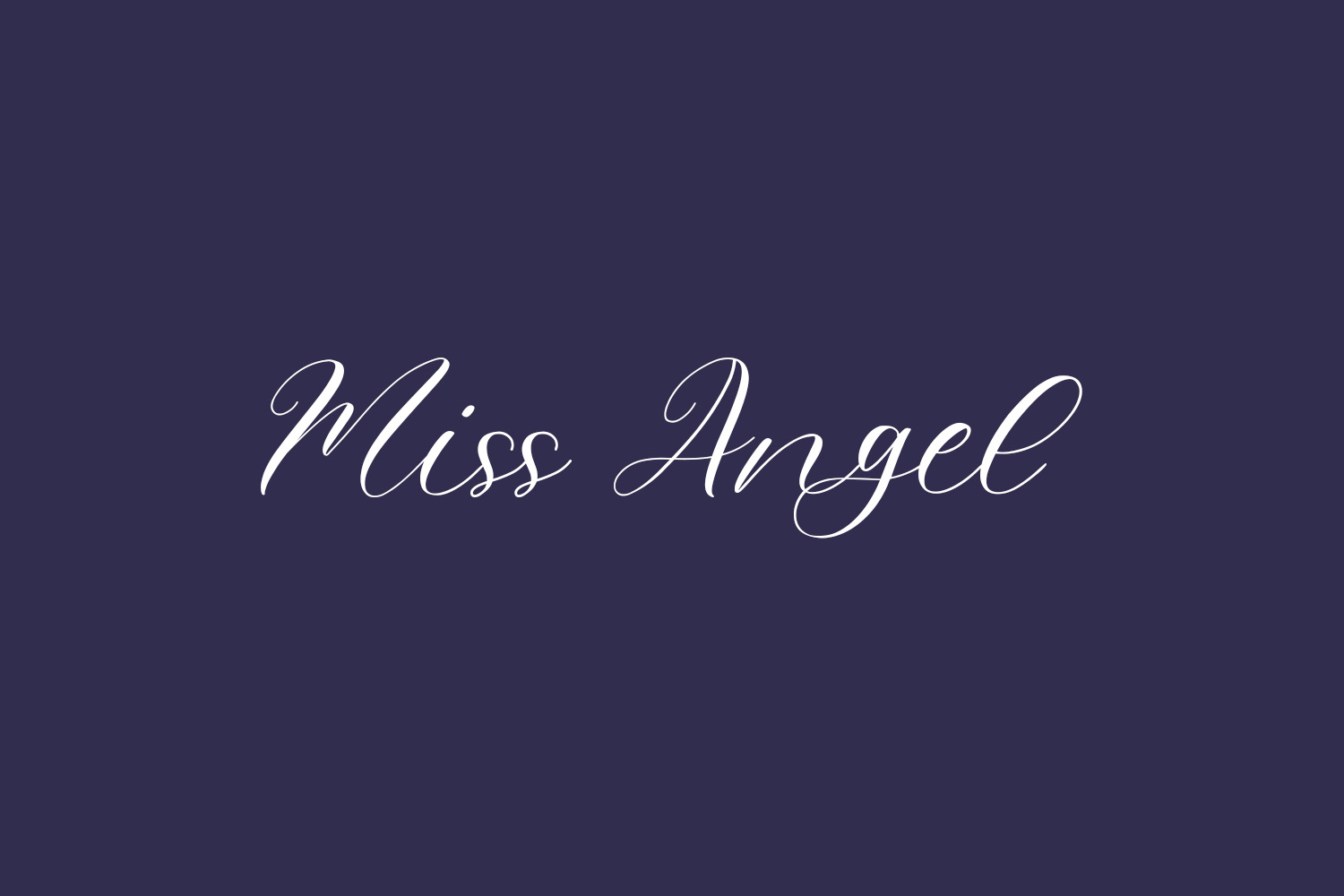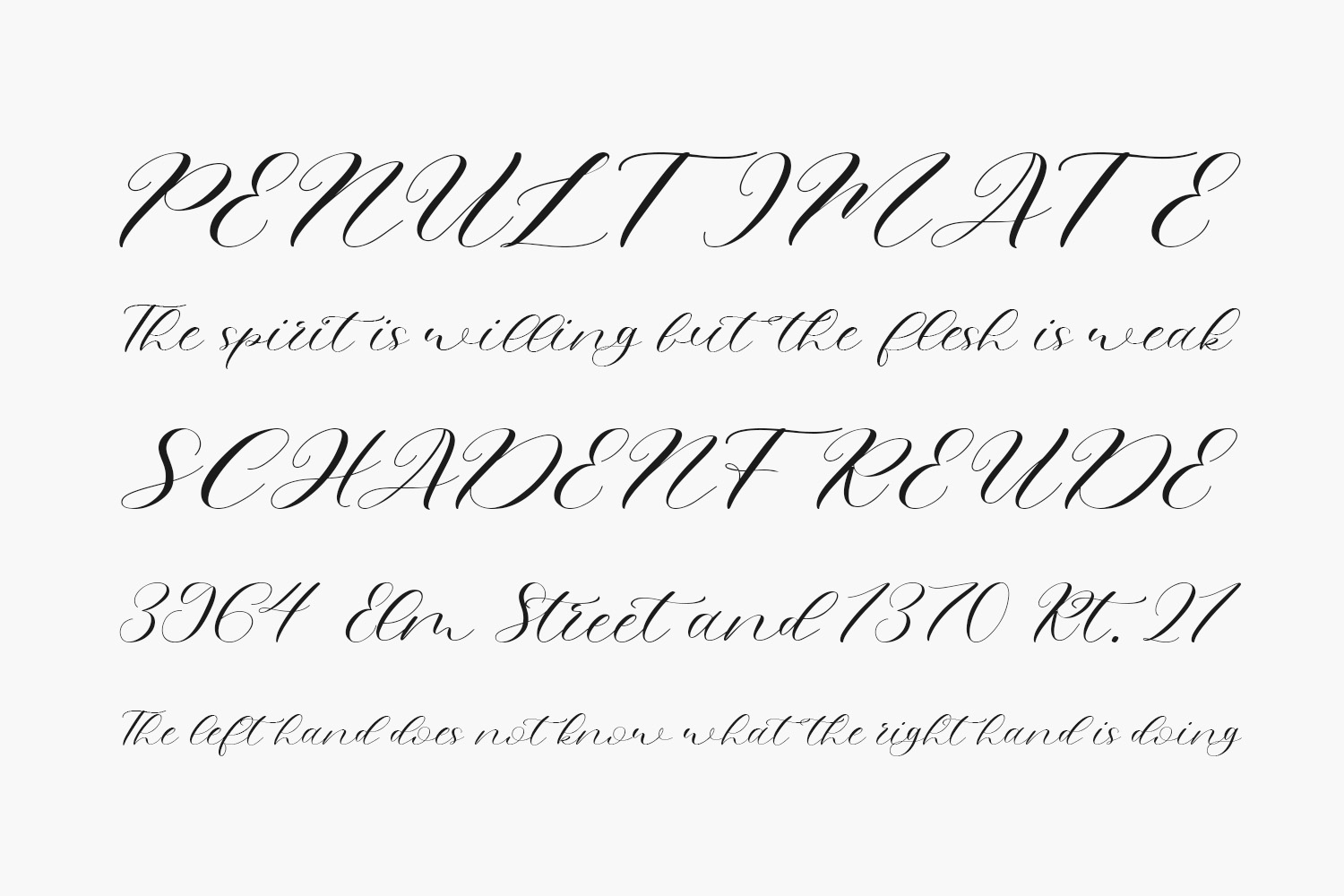
Miss Angel Free Font embodies a contemporary and exquisite handwritten script font. With its versatility, it’s an ideal choice for branding initiatives, logos, wedding invitations, product packaging, labels, social media content, advertising, and beyond. Free Font is free for personal use only. Please purchase the full version for commercial use.